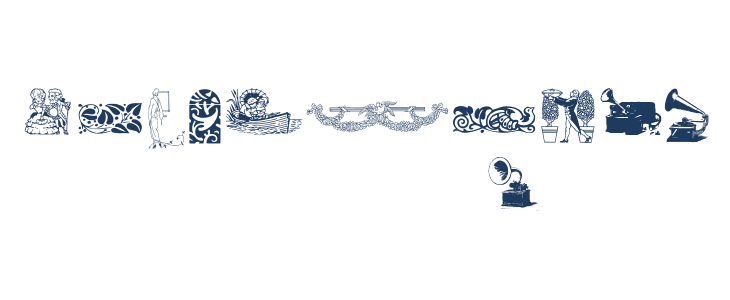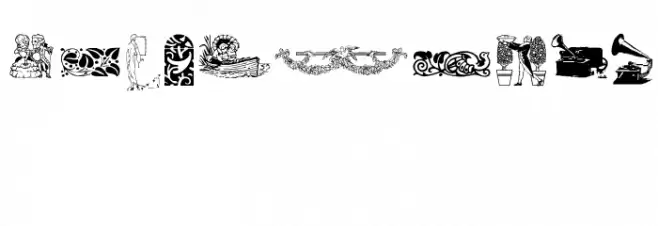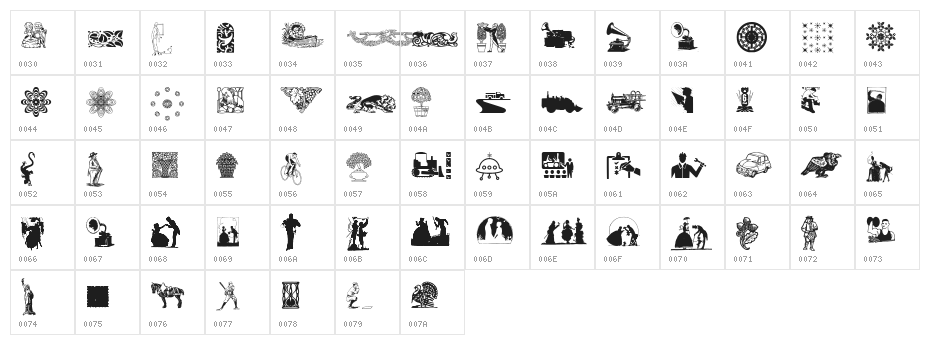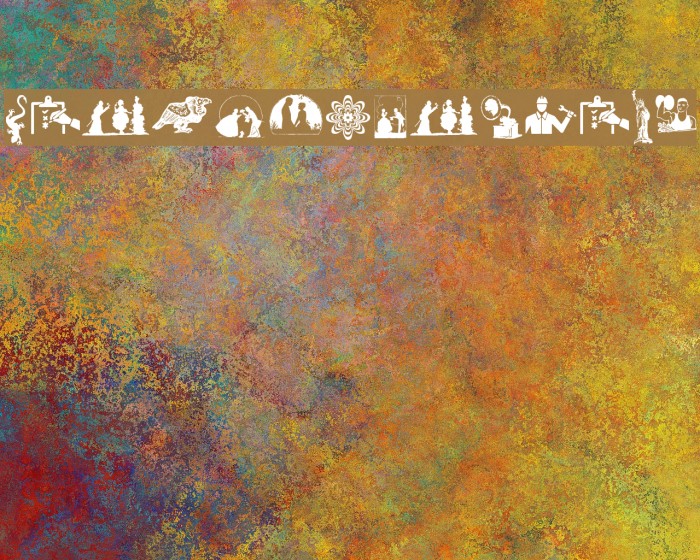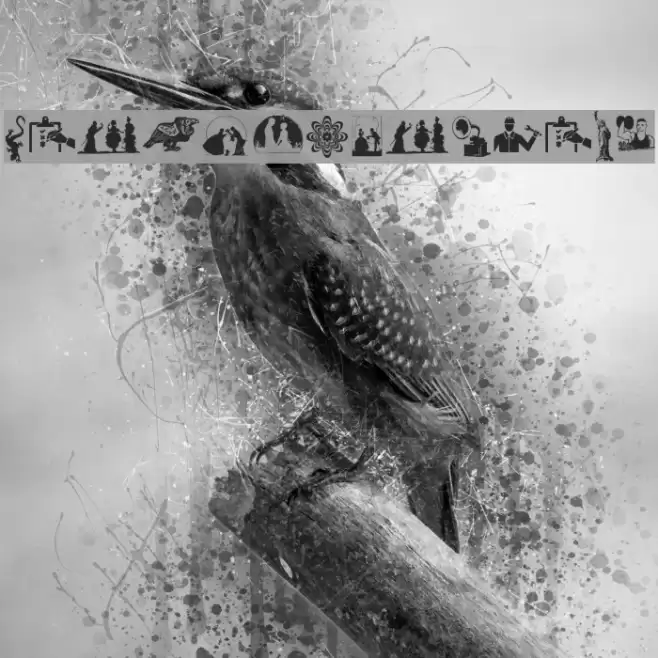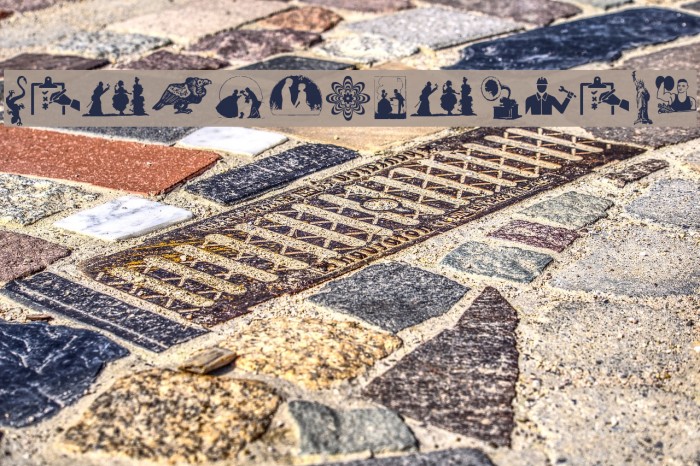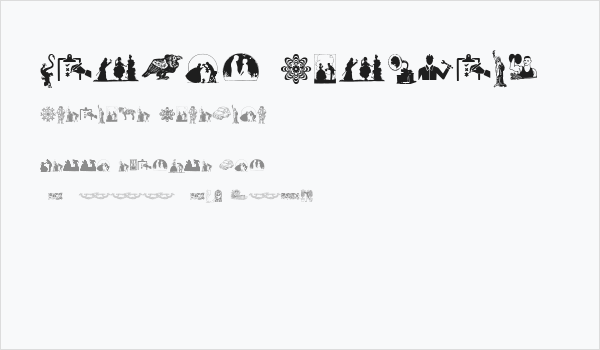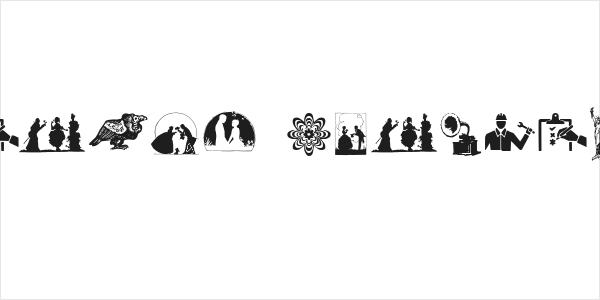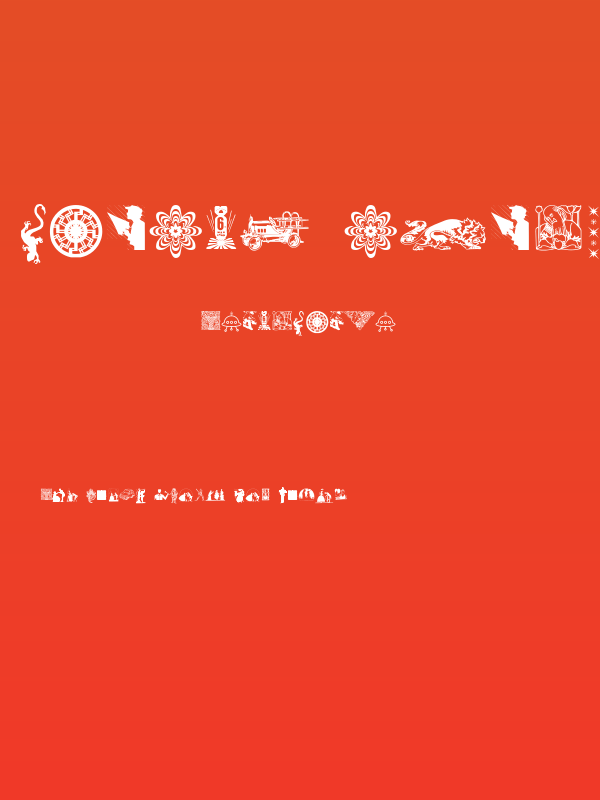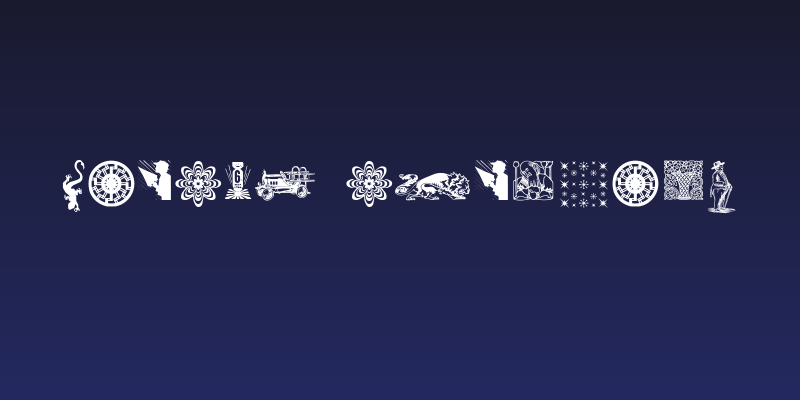
Random Dingbats Font
Random Dingbats Description
A collection of highly detailed, black-and-white pictorial dingbats featuring a wide variety of motifs including floral patterns, animals, people in vintage attire, vehicles, decorative ornaments, and whimsical objects. Each glyph is unique and illustrative, with a hand-drawn or engraved appearance, offering both solid silhouettes and intricate line work.
| Overall Style | Decorative, Vintage, Eclectic |
| Use Case | Ornamental accents, visual dividers, thematic illustrations, creative projects. |
| Proposed Projects | Scrapbooking, invitations, vintage-themed posters, decorative borders, visual storytelling, educational materials, and creative design accents. |